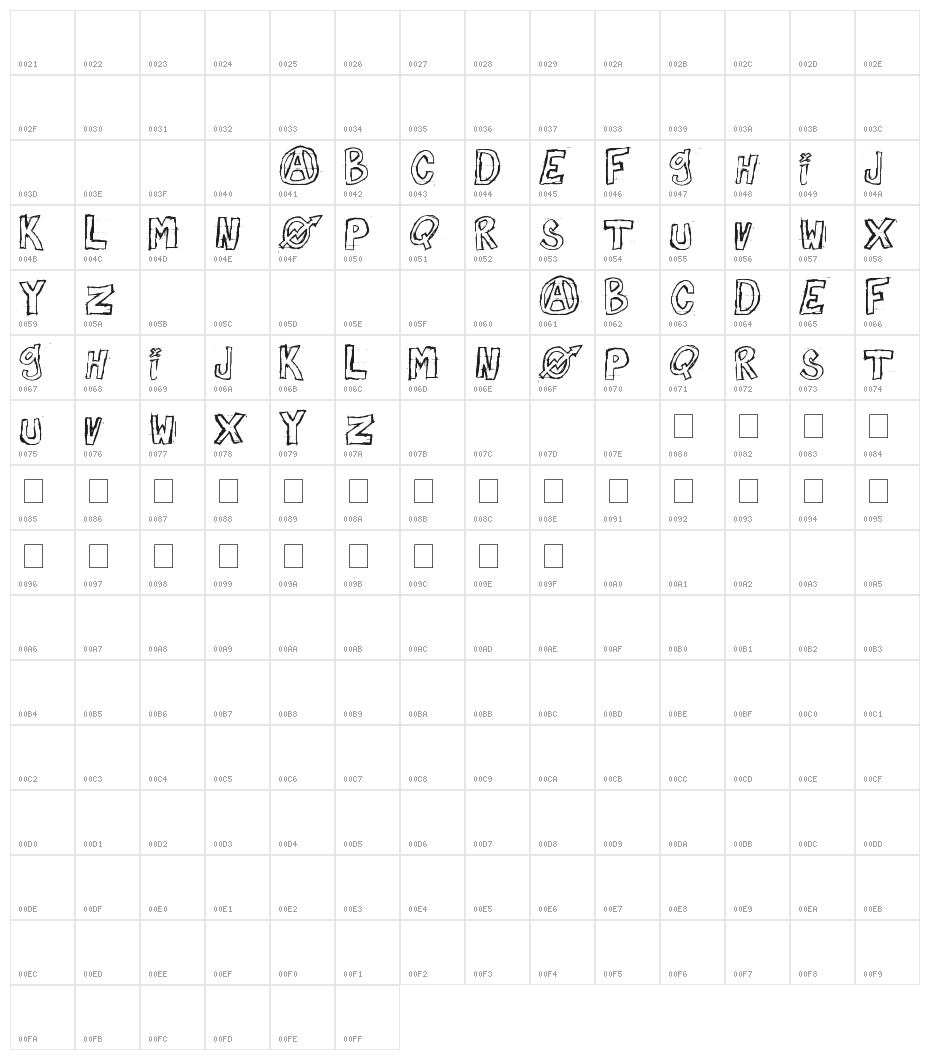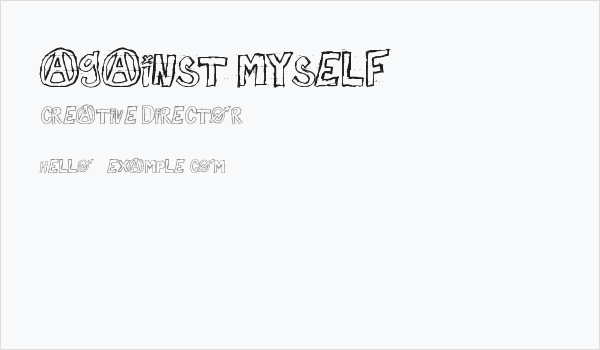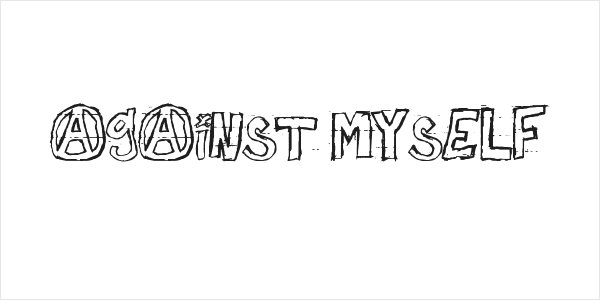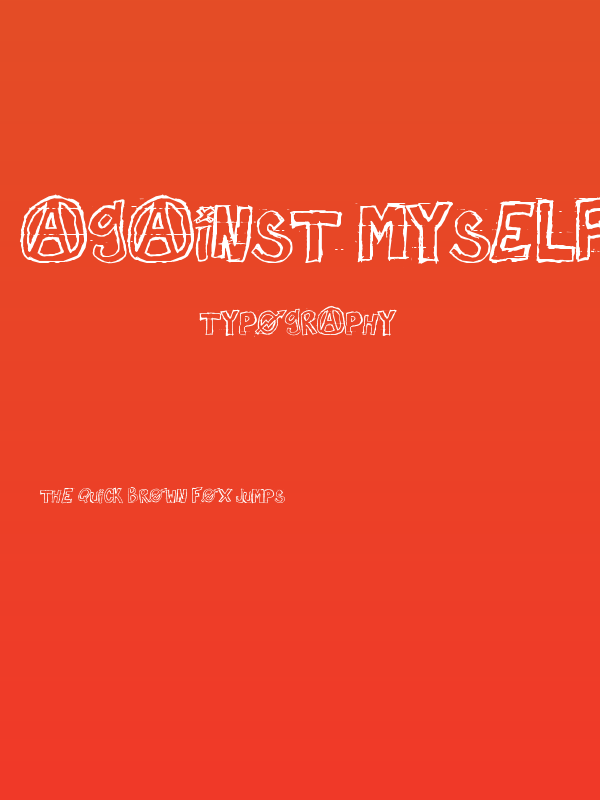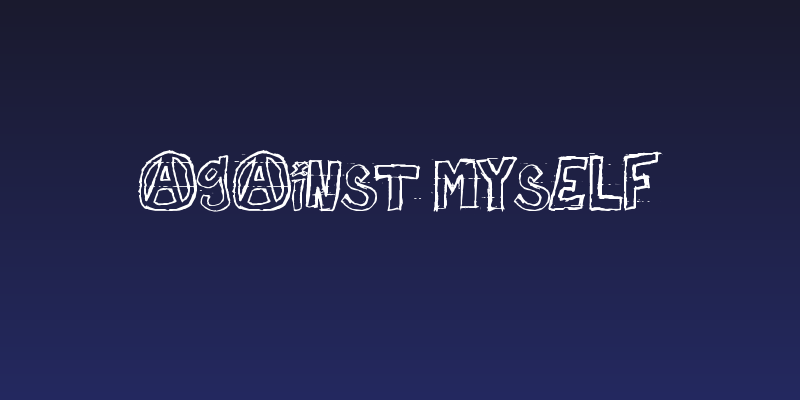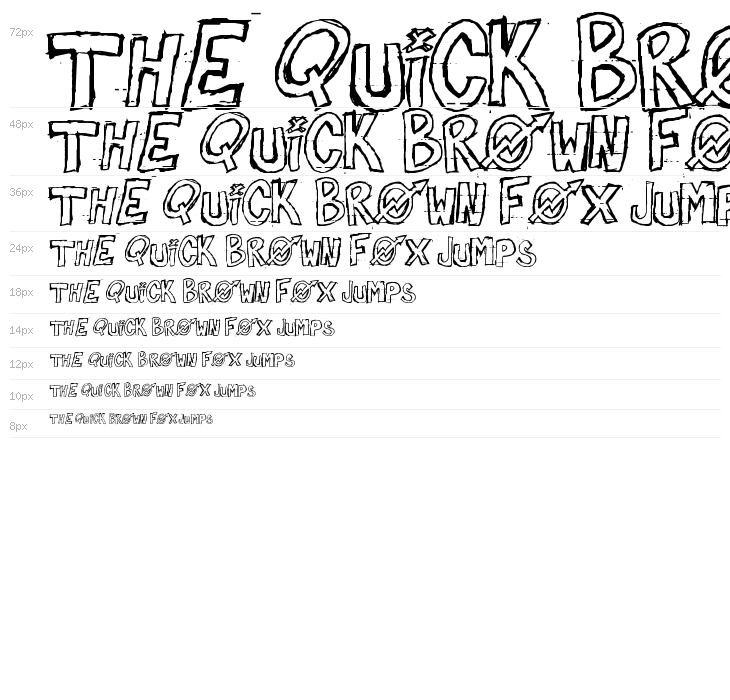
against myself Font
against myself Description
This font features a bold, hand-drawn style with a rough, sketch-like appearance. The characters are uneven and irregular, giving them a rebellious and edgy feel. The uppercase letters are particularly striking, with some incorporating unique symbols, such as the anarchy symbol for the letter 'A'. The lowercase letters maintain the same rugged aesthetic, complementing the uppercase set. The numbers and special characters follow this theme, adding to the font's overall distinctive and unconventional look. This font is perfect for projects that require a raw, artistic touch.
| Overall Style | Rebellious, Artistic, Edgy |
| Proposed Projects | Ideal for punk-themed designs, album covers, posters, and street art projects. |